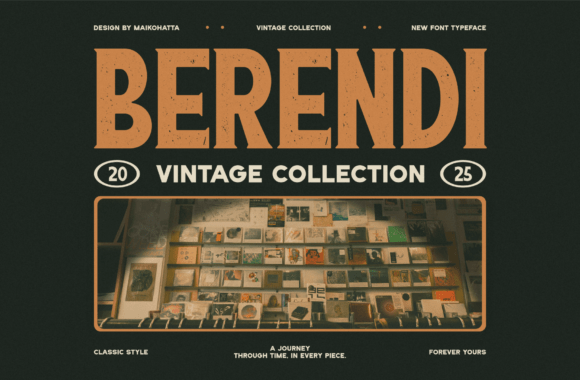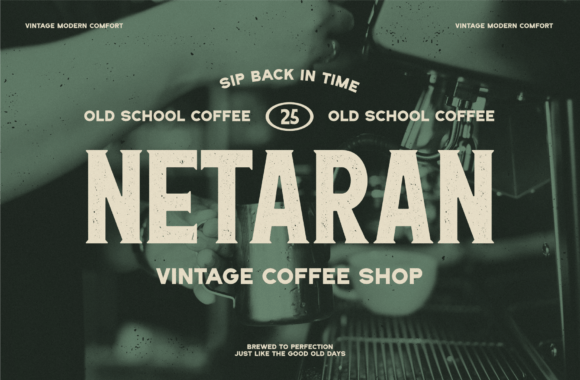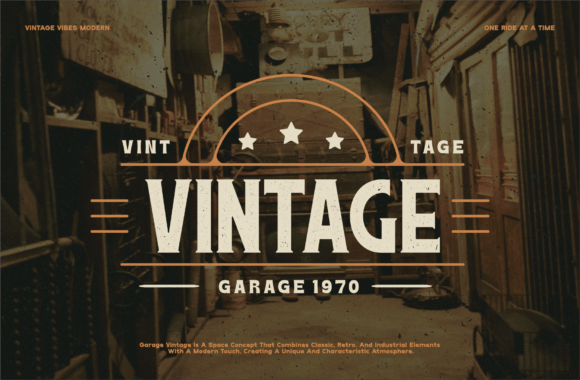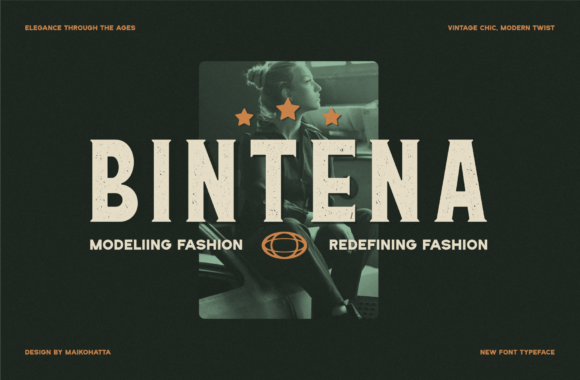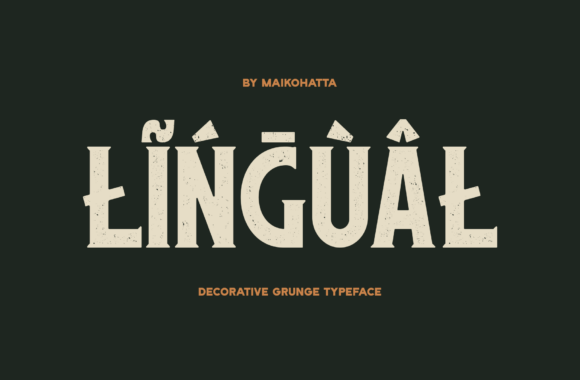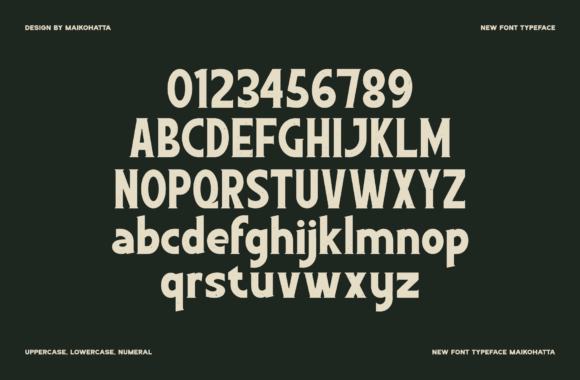
Introduction to Rebun Fuaneri Font
Remember the thrill of discovering a hidden gem in the world of design? The moment when you stumble upon a perfect font to elevate your creative project and make it truly stand out? That’s exactly what we’re excited to share with you today – our brand new **Rebun Fuaneri Font**.
This stunning, decorative retro display font is designed to add a touch of authenticity and boldness to any branding project, from logos to template designs, esports, and more. Whether you’re a seasoned designer or just starting out, the Rebun Fuaneri Font is an invaluable resource that will help you take your designs to the next level.
Key Features of Rebun Fuaneri Font
- High-quality design for creative projects, ideal for those seeking a unique and professional look.
- Comes with a transparent background, allowing for easy customization and integration into various designs.
- Features a unique and elegant design, perfect for use in various creative projects, from logos to graphics.
- Designed with high resolution (300 DPI) for crisp and clear display, making it suitable for print and digital applications.
- Perfect for designers looking for a high-quality font to elevate their creative project and add a touch of sophistication.
Honest Review: Rebun Fuaneri Font
I recently had the opportunity to work with the Rebun Fuaneri Font, and I must say it’s a solid addition to any designer’s toolkit. One of the standout features of this font is its high quality and attention to detail. The transparent background makes it a breeze to work with, and the design is both modern and elegant.
Here are some of the things that work well: ✨ The font’s versatility makes it suitable for a wide range of creative projects, from graphic design to digital art. ✨ The clean and minimalist design makes it easy to read and understand. ✨ The font is highly customizable, making it easy to adapt to any project.
While the Rebun Fuaneri Font is a great resource, there are a few limitations to consider: ⚠️ The font may not be suitable for projects that require a bold or dramatic font style. ⚠️ Some users may find the font’s transparency to be a bit finicky to work with.
Overall, I’m impressed with the Rebun Fuaneri Font. It’s a high-quality design resource that’s perfect for anyone looking to add a touch of elegance to their creative project. And the best part? It’s available for free download, making it a great option for designers on a budget.
Some key features of the Rebun Fuaneri Font include:
- High-quality design and attention to detail
- Modern and elegant design
How to Use Rebun Fuaneri Font
Tips for Getting the Most Out of the Rebun Fuaneri Font
To maximize the benefits of the Rebun Fuaneri Font, use it on a transparent background to create visually appealing designs. Experiment with different font sizes, colors, and combinations to achieve your desired aesthetic.
The Rebun Fuaneri Font is ideal for:
- Logo designs
- Banners and advertisements
- Infographics and charts
- Print and digital media
Compared to Rebun Fuaneri Font, Alex Brush Font has a more refined and polished look, making it suitable for more formal and professional designs.
A modern, cursive font that’s perfect for adding a touch of playfulness and creativity to your design project. Great Vibes Font features a unique, hand-drawn style with a transparent background, making it ideal for designing titles, headings, and body text. When to use: Casual branding, social media graphics, and creative content.
Q: Does the Rebun Fuaneri Font have a transparent background?
The Rebun Fuaneri Font is designed with a transparent background, making it ideal for use in design projects that require a clean and minimalist look. This feature allows you to easily combine the font with other design elements or use it on top of a transparent background without any issues.